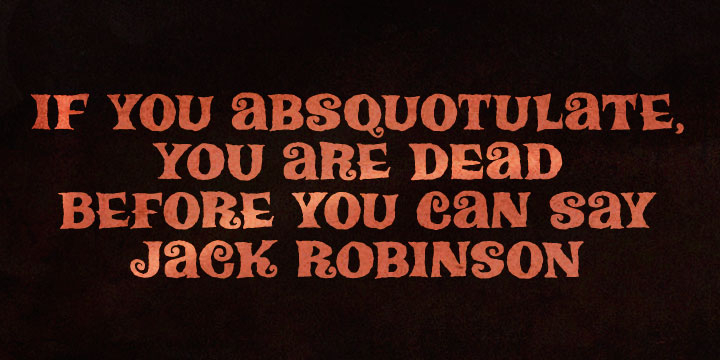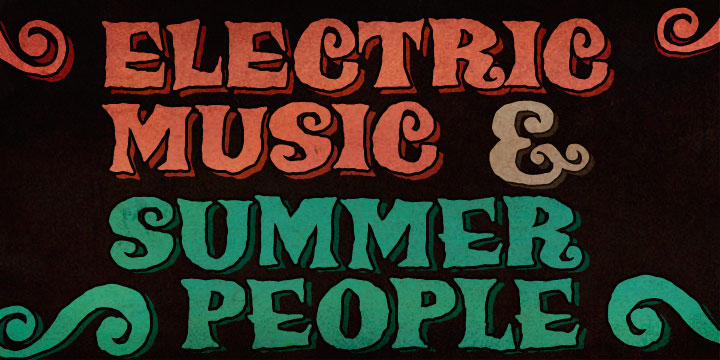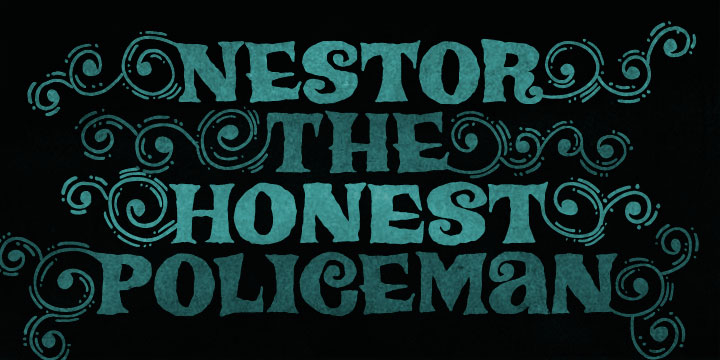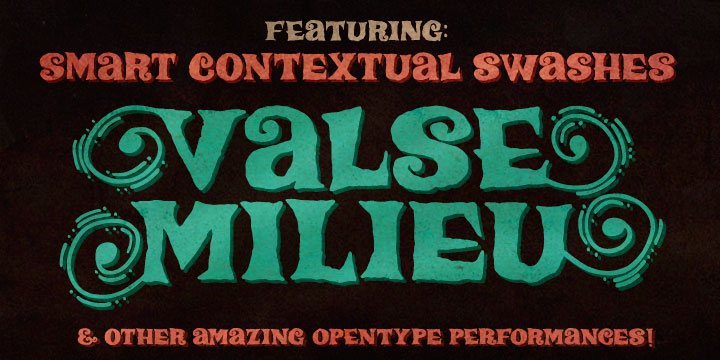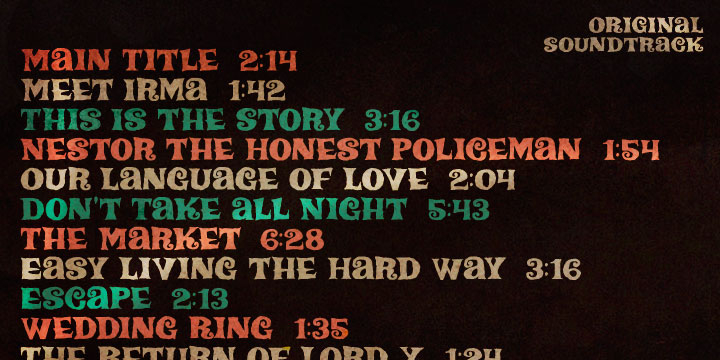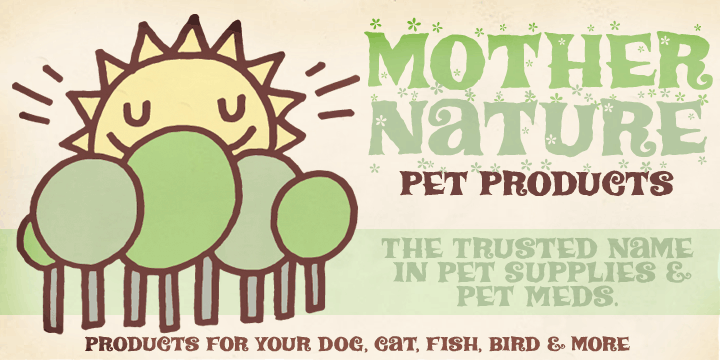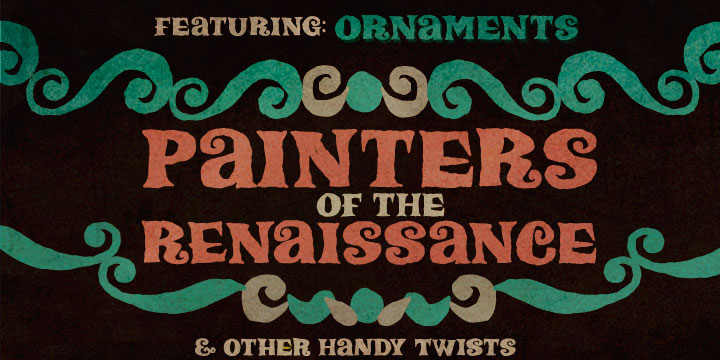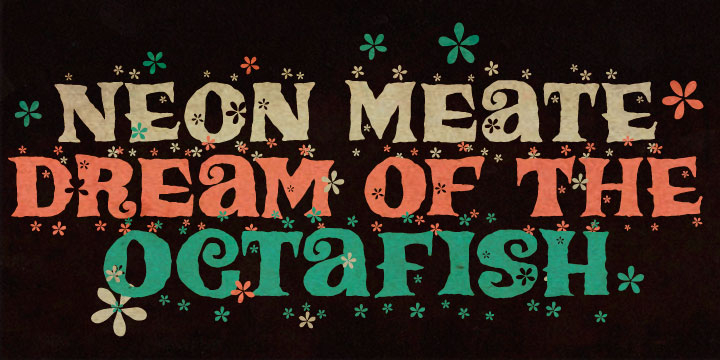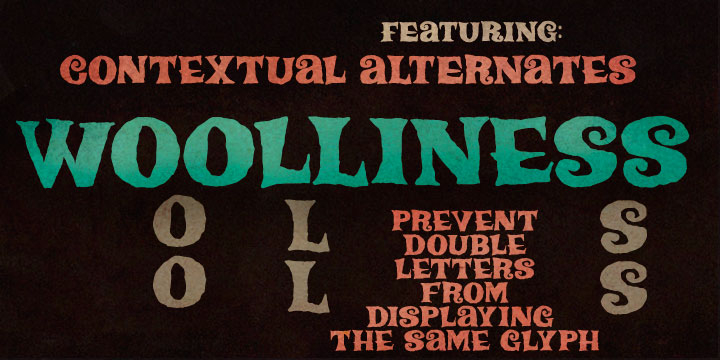
Chez Moustache is a display font published by PintassilgoPrints.
Based on Irma La Douce film opening titles, Chez Moustache is an eye-catching display font loaded with cool special effects. It is a unicase typeface with 2 versions for each letter, each easily accessible through keyboard upper and lower case keys. For preventing double letters from displaying the same glyph, just type the alternate glyph, or use the neat OpenType funcionality to make things easier: just turn on the Contextual Alternates in any OpenType aware program and itís all done before you can say Jack Robinson.
Did you push the Stylistic Alternates button instead? Voil‡, so you’ve got a pocketful of flowers! Thereís a complete set of sweet stylistic alternates to instantly flourish your way.
And itís not over yet: check out the cool initial and terminal forms for that extra twist. Pick your choices with a glyphs palette or just turn on the OpenType Swash feature. Thereís a lot to do ‘Chez Moustache’!